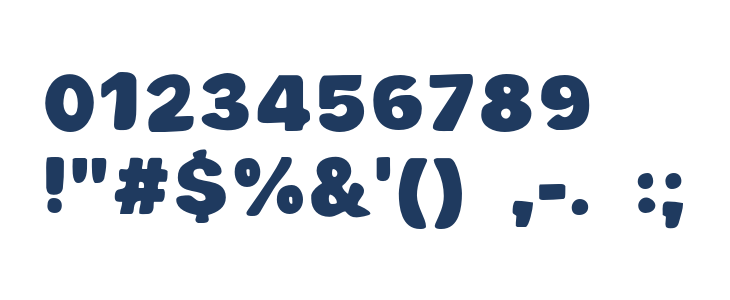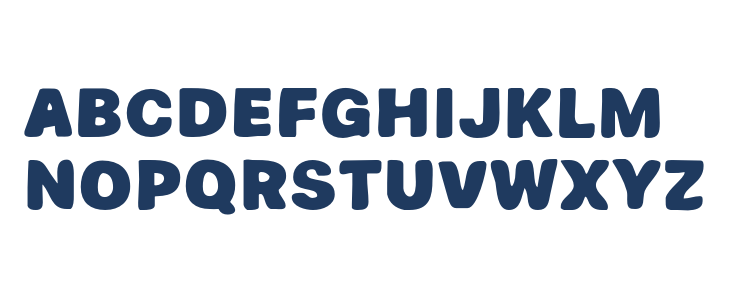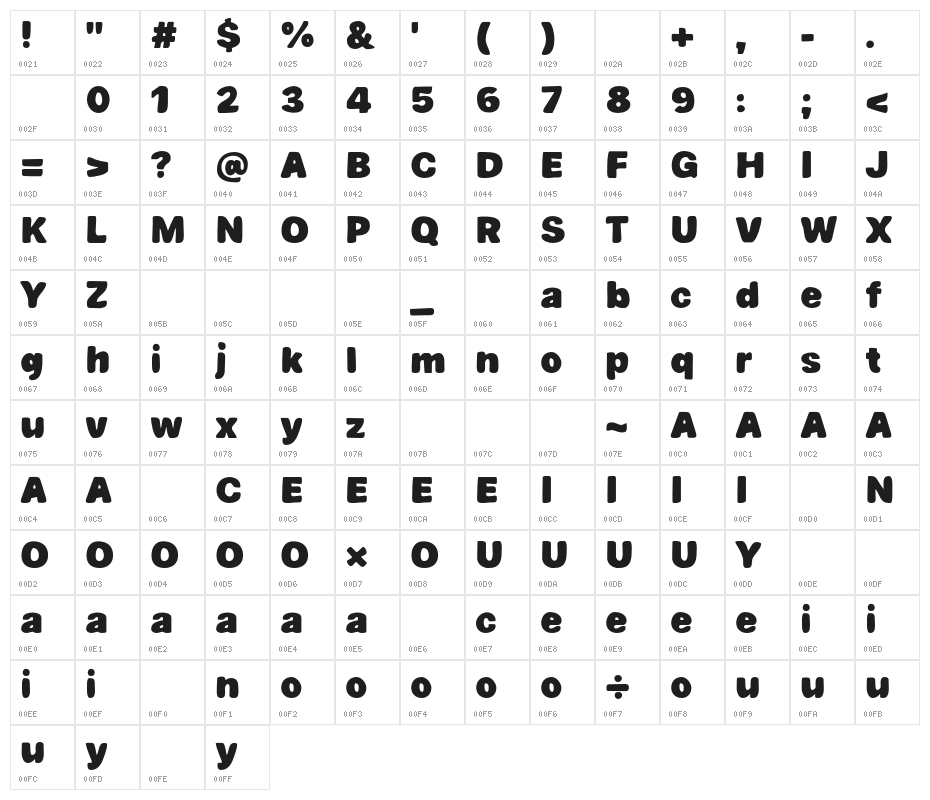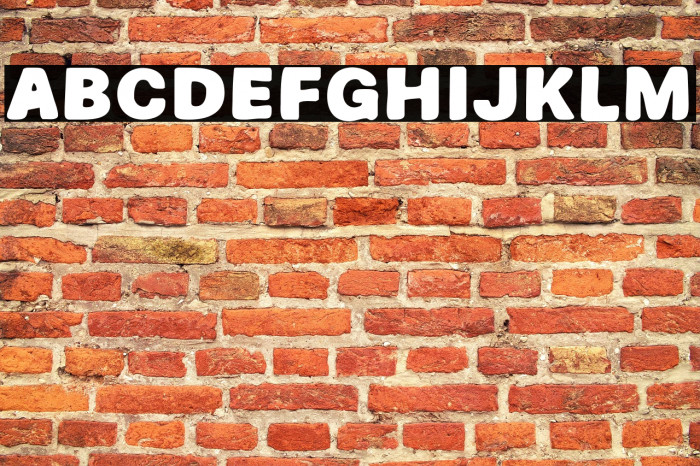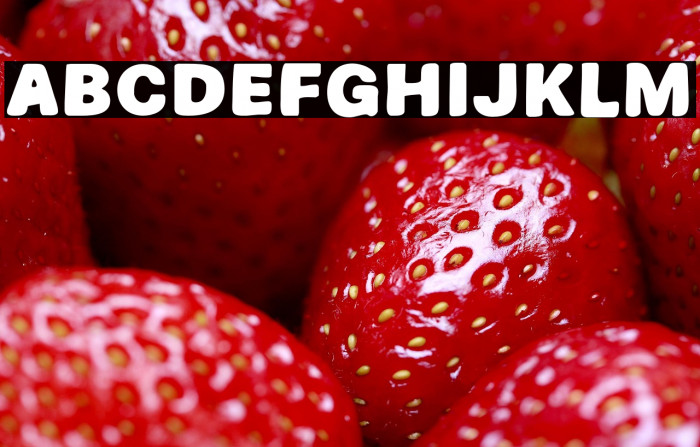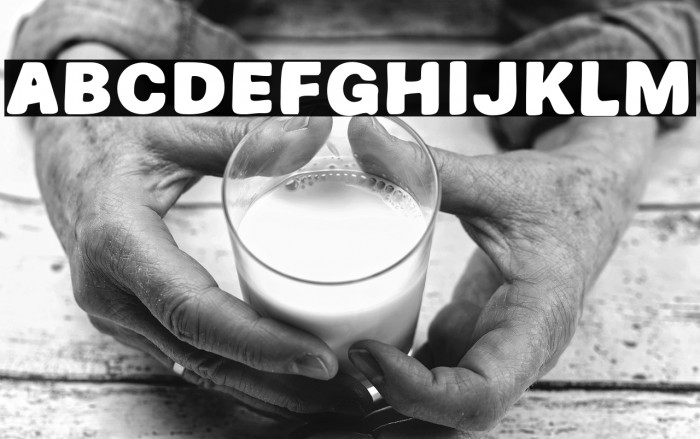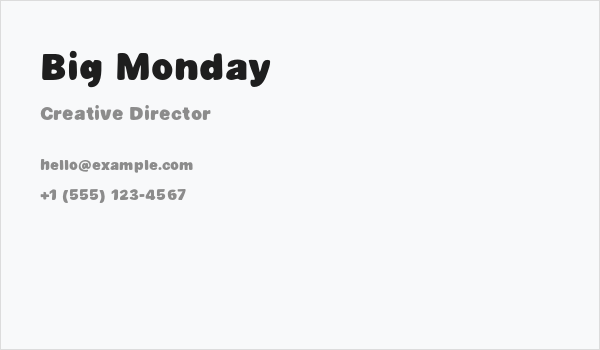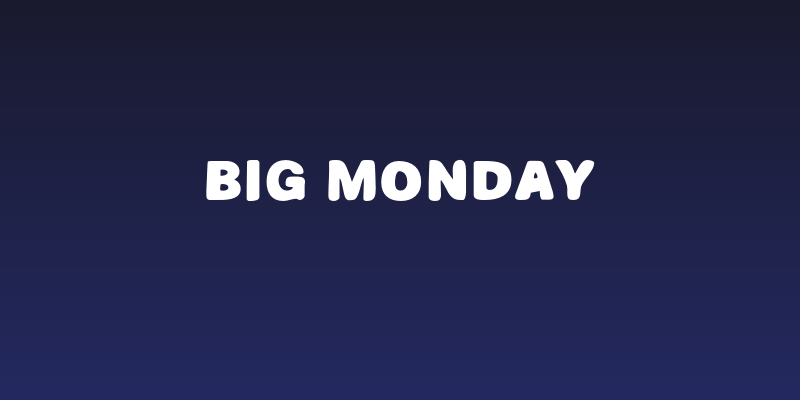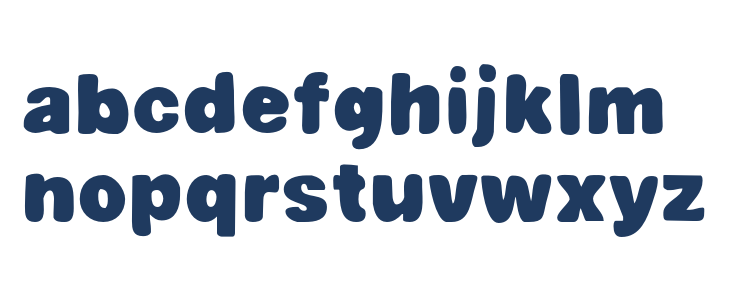
Big Monday Font
Big Monday Description
A bold, rounded sans-serif font with playful, slightly irregular shapes giving it a casual and friendly appearance. The characters have thick strokes with minimal contrast and a slightly condensed width.
| Overall Style | Playful, Casual |
| Use Case | Headlines, Logos, Display text |
| Proposed Projects | Children's books, posters, logos, branding for informal or fun products, packaging, and headlines. |